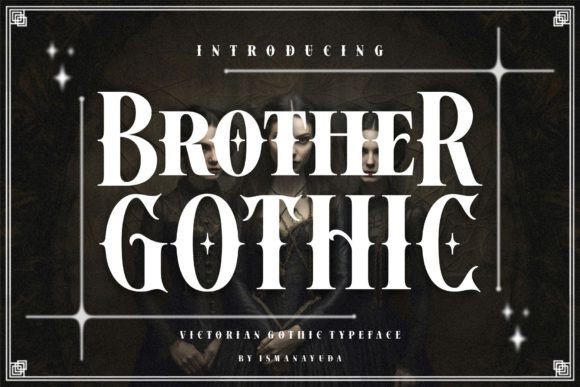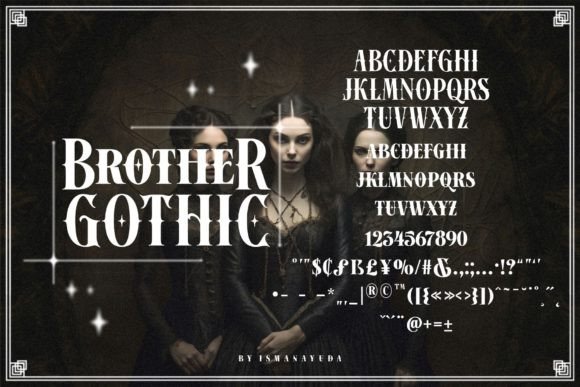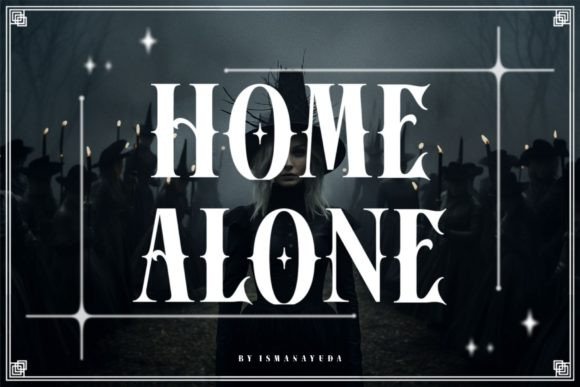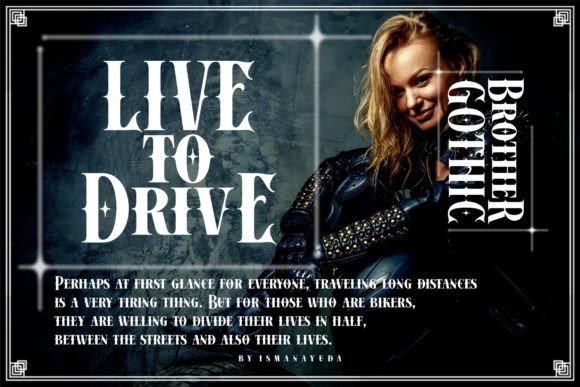
Brother Gothic Font: Victorian Typeface for Branding & Logo Design
About the Brother Gothic Font
Presenting Brother Gothic Font, a unique and stylish typeface that will make your work stand out. Introducing our new font, which we named “BROTHER GOTHIC”.
This font carries the style of a Victorian typeface, but we give it a gothic and biker feel.
So this font can be used more widely.
Brother Gothic excels in headline applications, short impactful phrases, and branding projects requiring a strong, rebellious aesthetic. Its bold Victorian-Gothic style works well for posters, logos, and packaging where a statement needs to be made. Avoid using it for body text or lengthy paragraphs; its highly decorative nature can hinder readability in extended use.
The font’s core personality is bold and assertive, conveying a sense of vintage rebellion with a modern edge. This makes it ideal for brands targeting a mature audience interested in classic styles with a twist, such as motorcycle apparel, high-end spirits, or steampunk-inspired products.
Pairing Brother Gothic effectively requires considering its strong character. A clean sans-serif like Futura or a geometric sans-serif like Montserrat will create a sharp, modern contrast. For a softer contrast, a classic serif such as Garamond or a more informal script like Pacifico could work depending on the desired level of contrast.
Brother Gothic Font Usage Examples
Brother Gothic Font Example